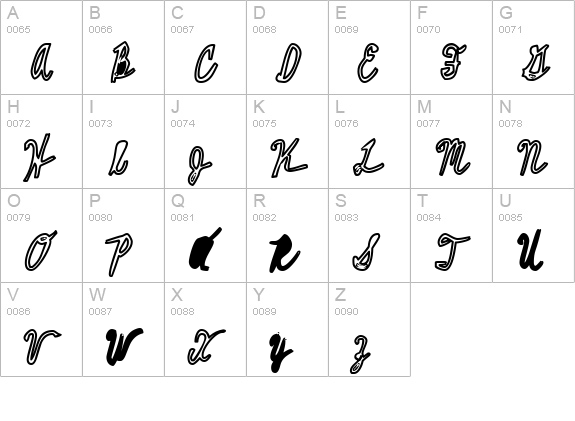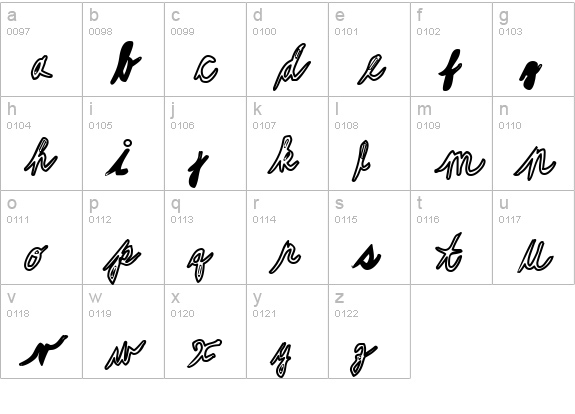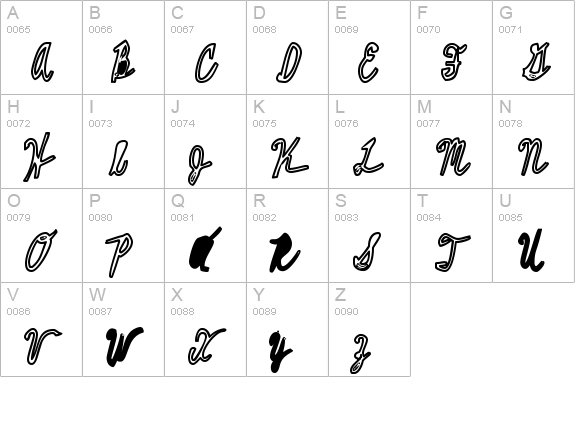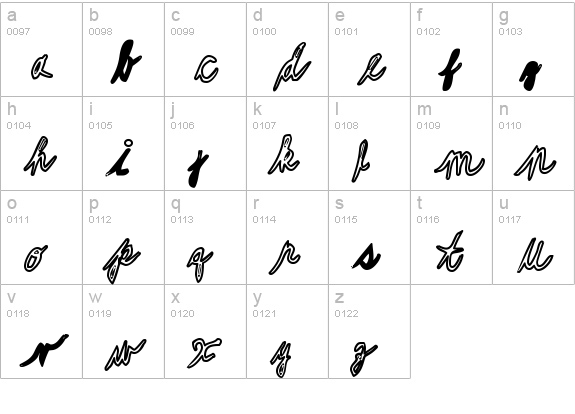
Avoid Long Lines 1 Font Details
Avoid Long Lines 1 is a modern and stylish font that is perfect for adding a touch of sophistication to any design project. This font features clean lines and a sleek aesthetic, making it a versatile choice for both print and digital applications. Whether you're designing a logo, creating a poster, or working on a website, Avoid Long Lines 1 is sure to make a statement. Best of all, this font is completely free to download at FontsMarket.com! Simply visit the website and add this font to your collection today. With its timeless appeal and elegant design, Avoid Long Lines 1 is sure to become a go-to choice for all your typography needs. Don't miss out on this fantastic free font - download it now and elevate your designs to the next level.